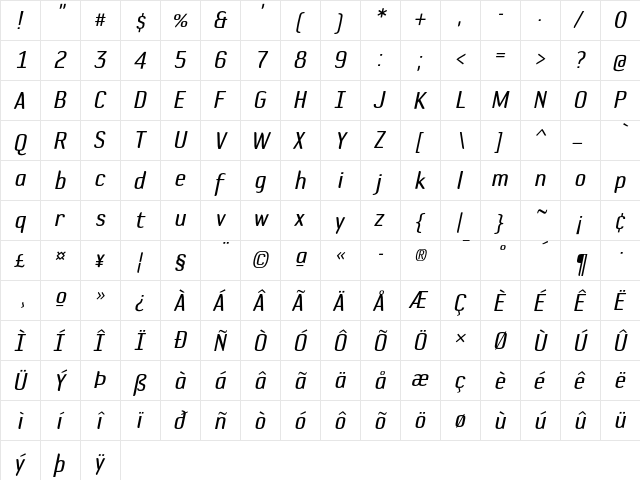
DefaultGothic-BGauge Italic
Design Context for DefaultGothic-BGauge Typeface
DefaultGothic-BGauge has the quiet confidence of well-executed sans-serif typography: versatile, unobtrusive, and dependable at any size. Its italic angle brings a sense of urgency and motion to the letterforms.
Font Pairing: Works well alongside a characterful serif or display font that can carry the expressive load while DefaultGothic-BGauge handles the functional copy.
Pro Tip: Use DefaultGothic-BGauge for UI labels, navigation, and short-form body copy where clean legibility is the priority.